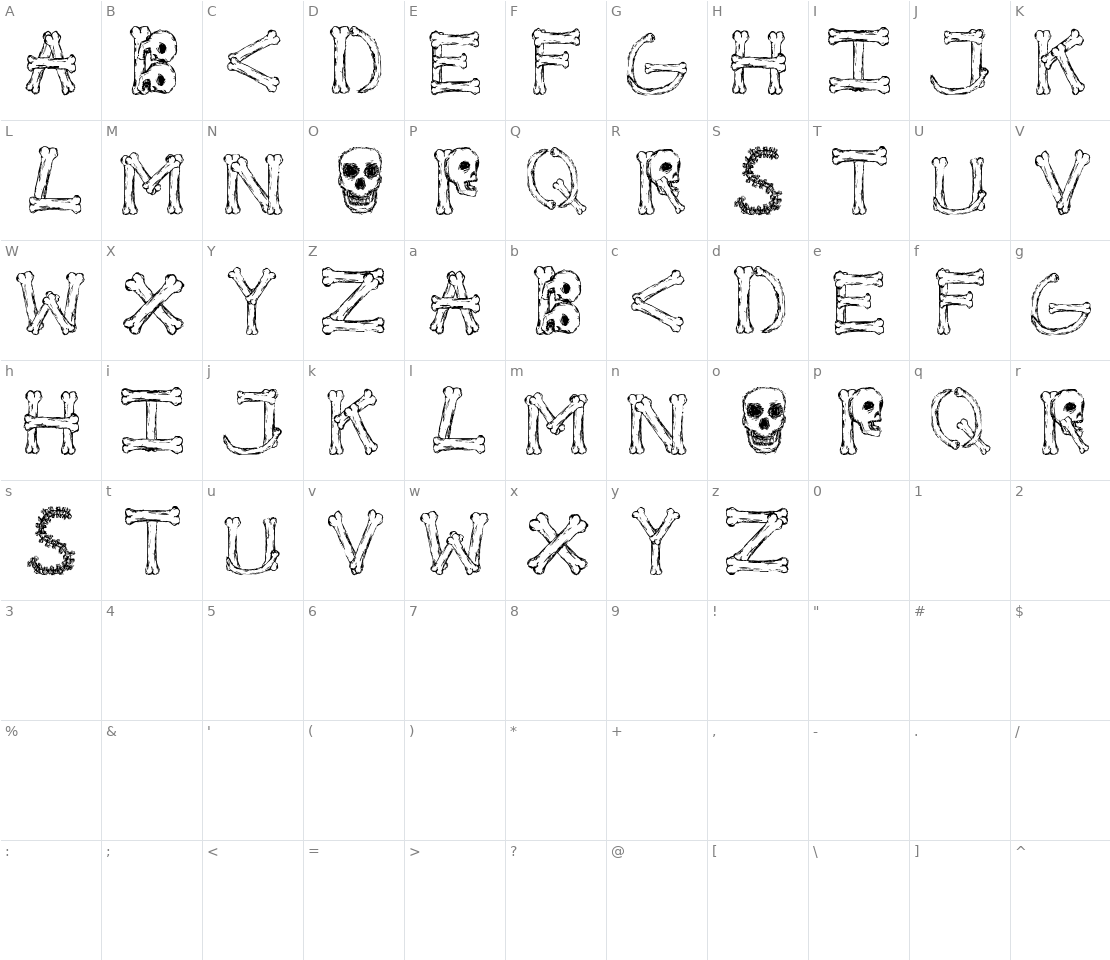
Bonified
Bonified is a novelty display face built entirely from bones, with each letterform constructed from femurs, ribs, and skulls arranged into readable characters. It's pure Halloween territory, made for haunted house flyers, horror-themed packaging, and spooky event posters where subtlety is beside the point. Strictly decorative and best kept to headlines and short text at large sizes where the skeletal details can do their thing.